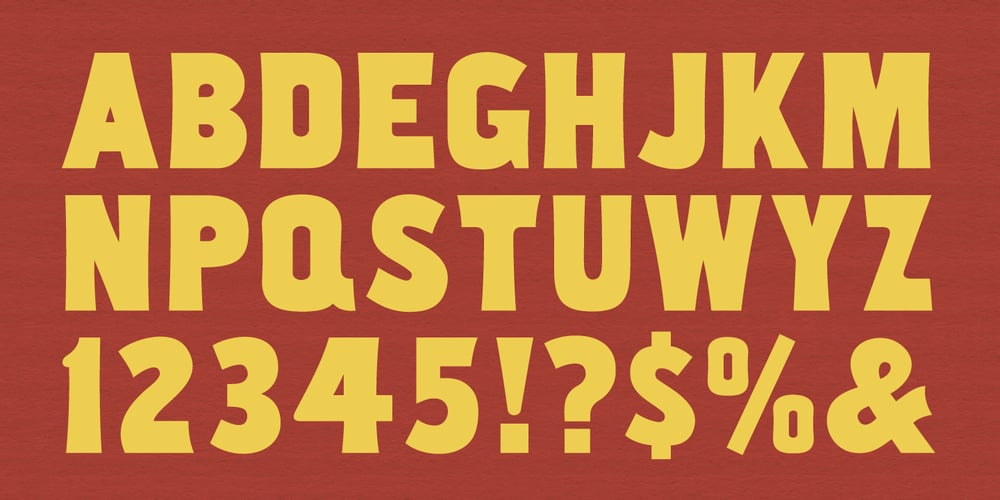
MPI No. 508 Font Family was designed by published by mpressInteractive. MPI No. 508 contains 1 styles and family package options. No. 508 is a chunky, friendly, modulated gothic font. Strokes have a gentle inward curve at the median, with the tops and bottoms of the letters slightly wider. The face was introduced by William H. Page & Company in 1890.